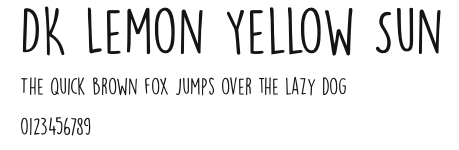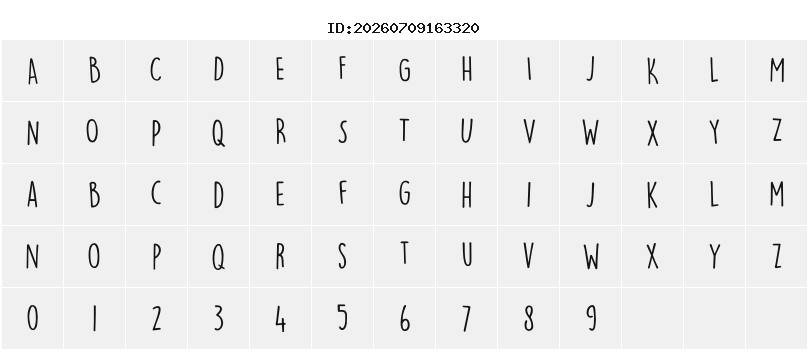
• Font Name: DK Lemon Yellow Sun
• Designer: David Kerkhoff
About DK Lemon Yellow Sun.otf
DK Lemon Yellow Sun.otf is a modern, elegant sans-serif font designed for ultimate readability and visual harmony. Perfect for branding, headlines, web design, and print materials.